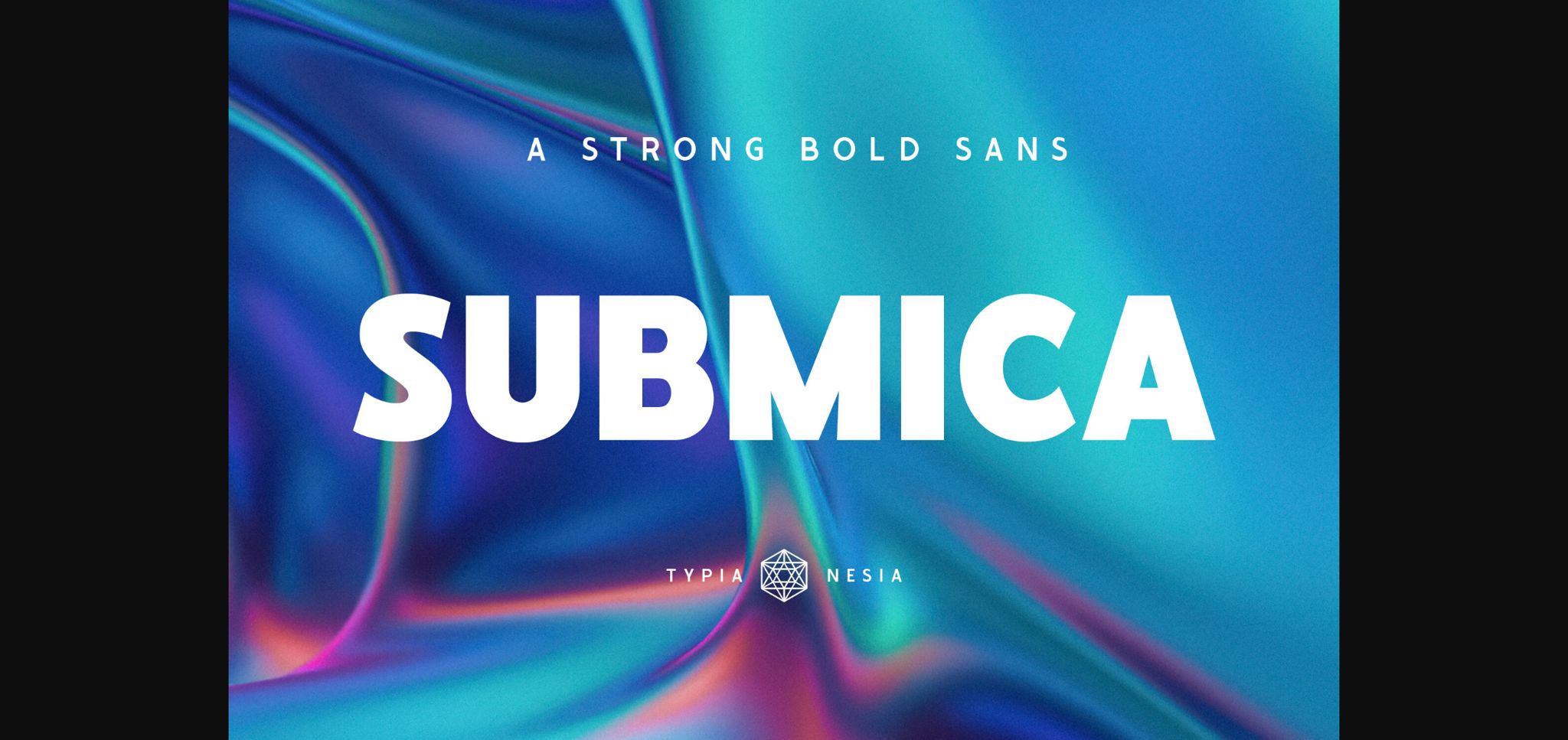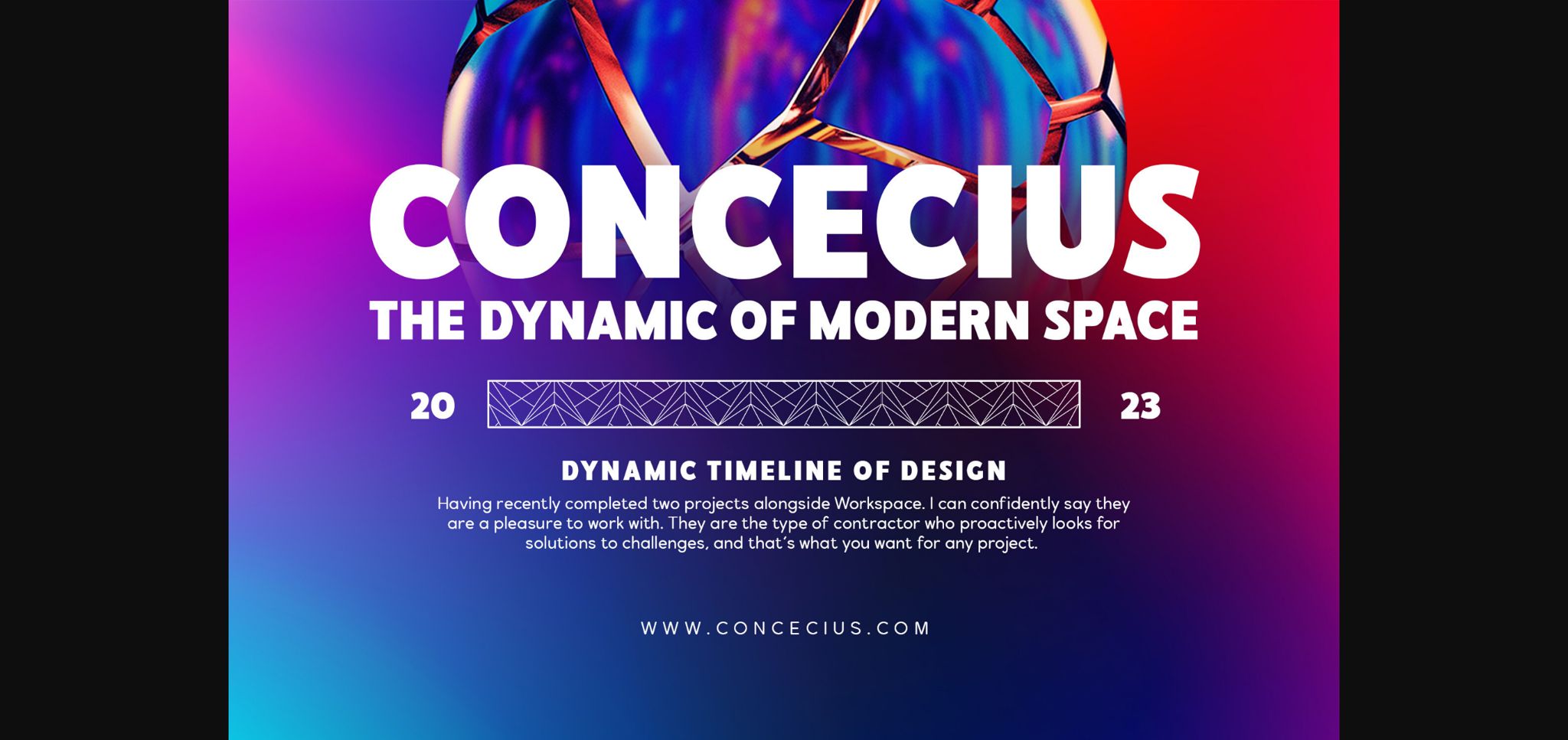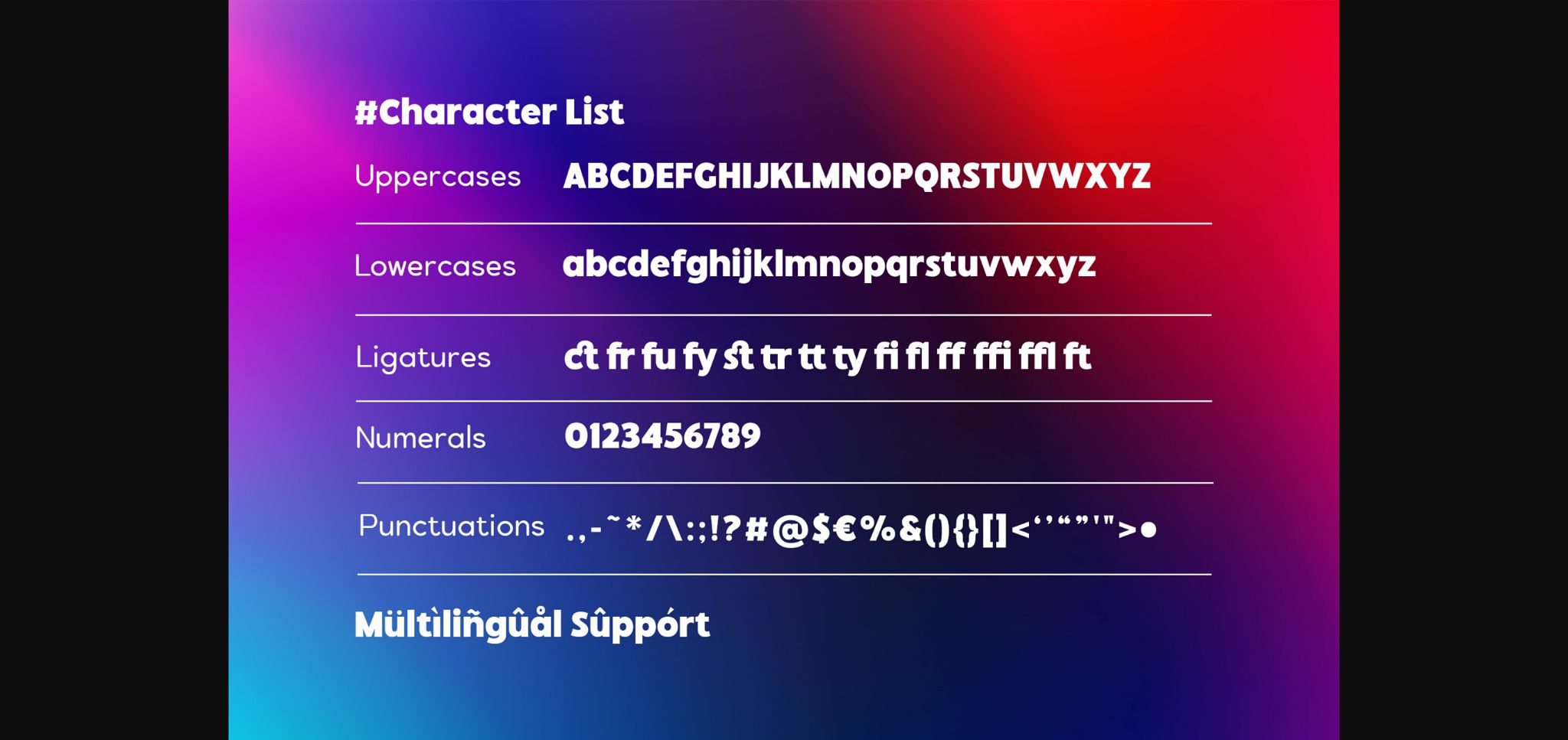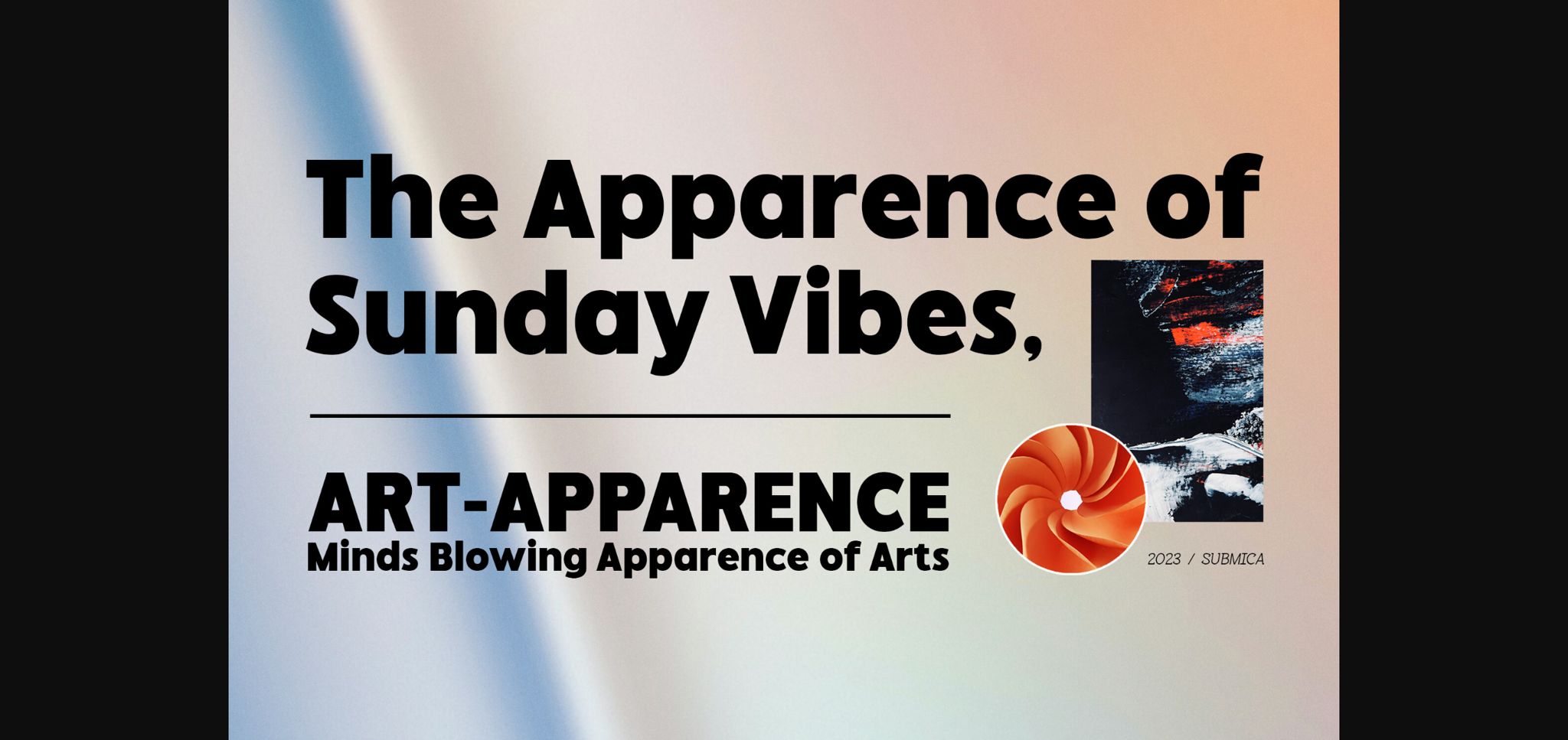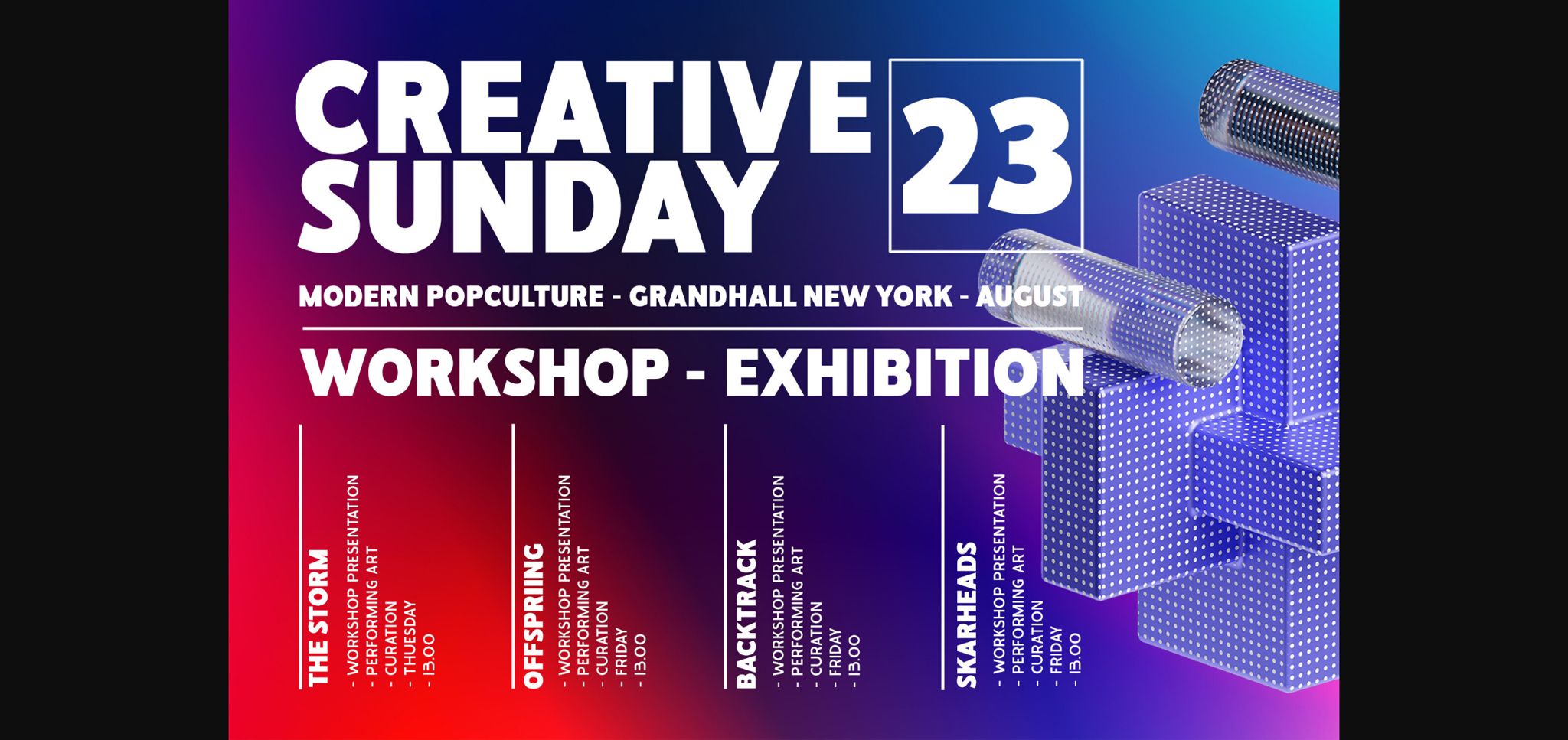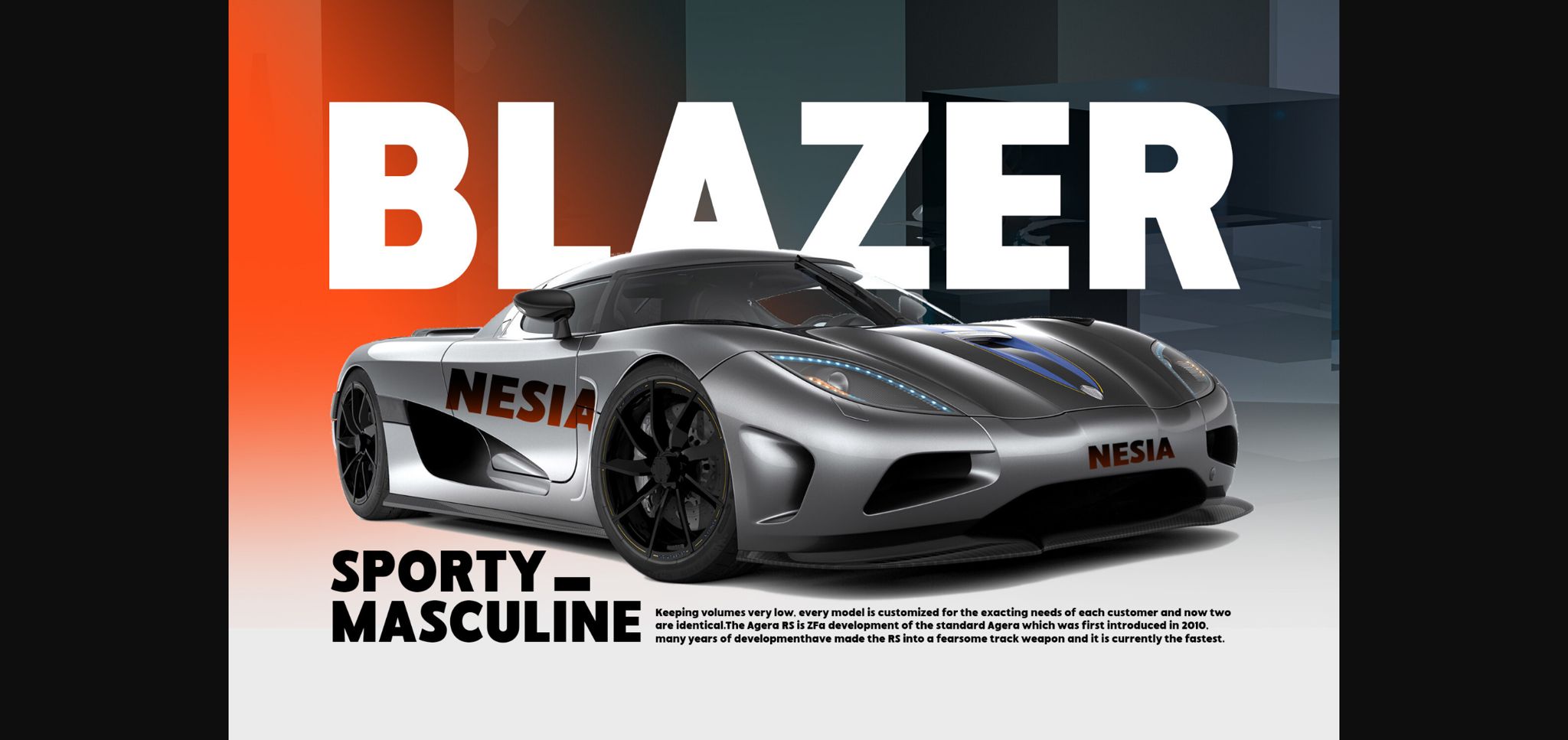
About Submica Font
Submica – Strong bold sans – Where Strength Meets Bold Precision in Every Sans Stroke
Submica embodies a strong and bold design, characterized by a sans-serif typeface that exudes confidence and modernity. Submica with its strong, bold and sans style is very suitable to be applied in various design contexts that require a strong, bold and modern impression. Such as corporate branding for company identity. marketing materials for brochures, pamphlets and posters. Website Design, App Interfaces, Event Branding, Editorial Design, and Fashion Branding. Submica can work up the appearance of your projects that require a strong and bold typographic style. with ligatures feature, enhancing the overall aesthetic appeal and adding a touch of sophistication to your typography.